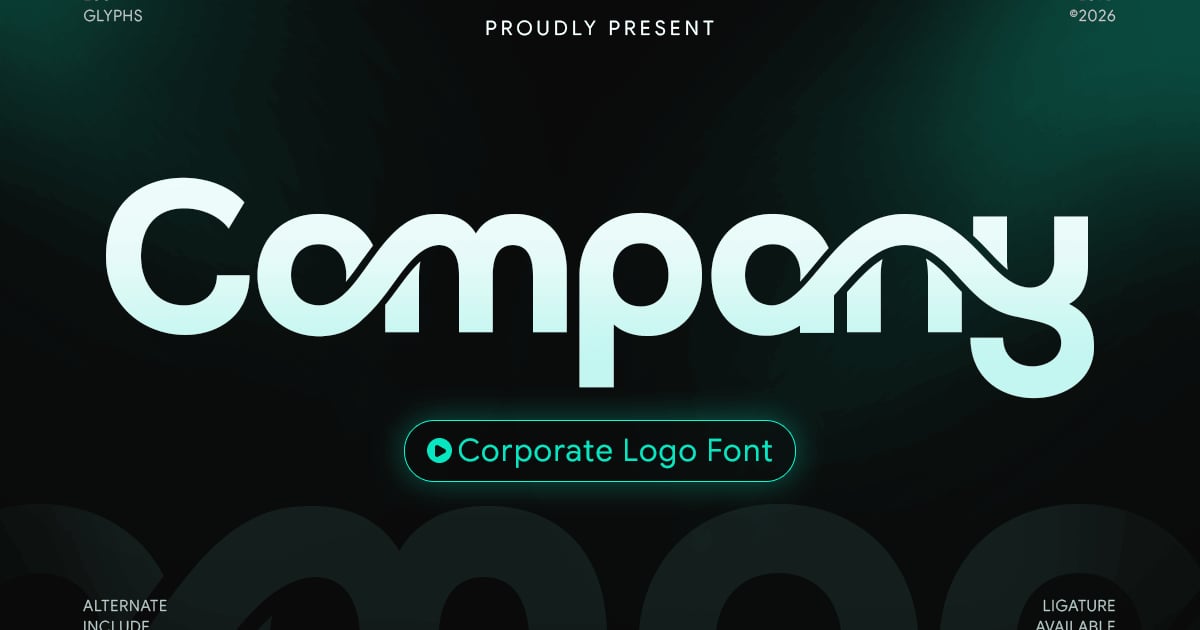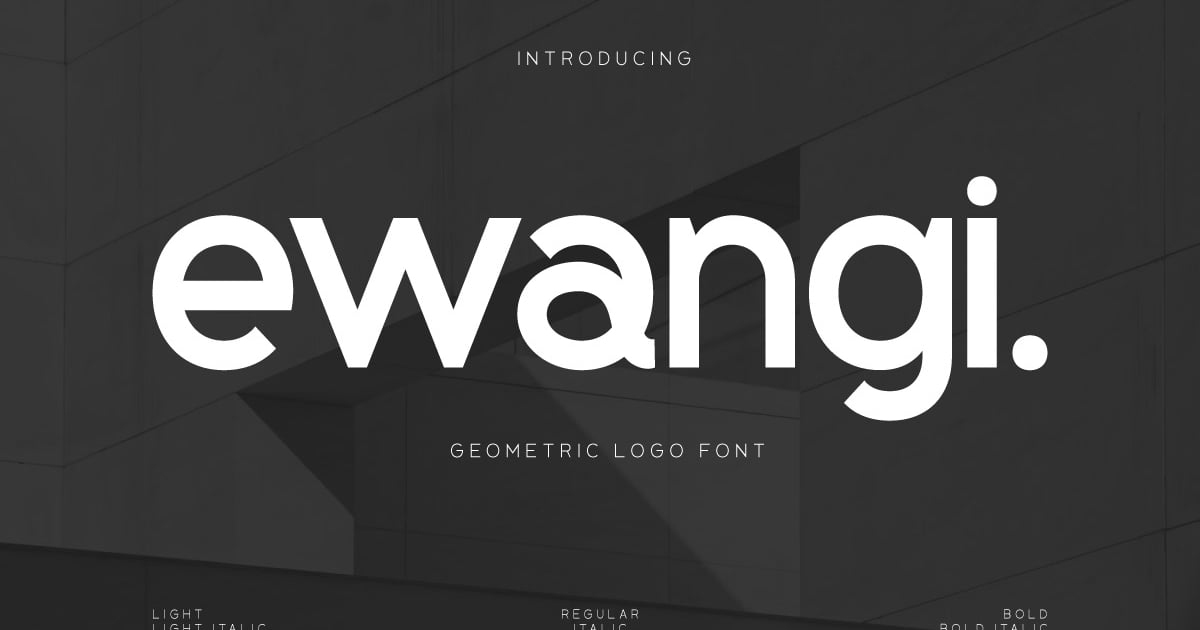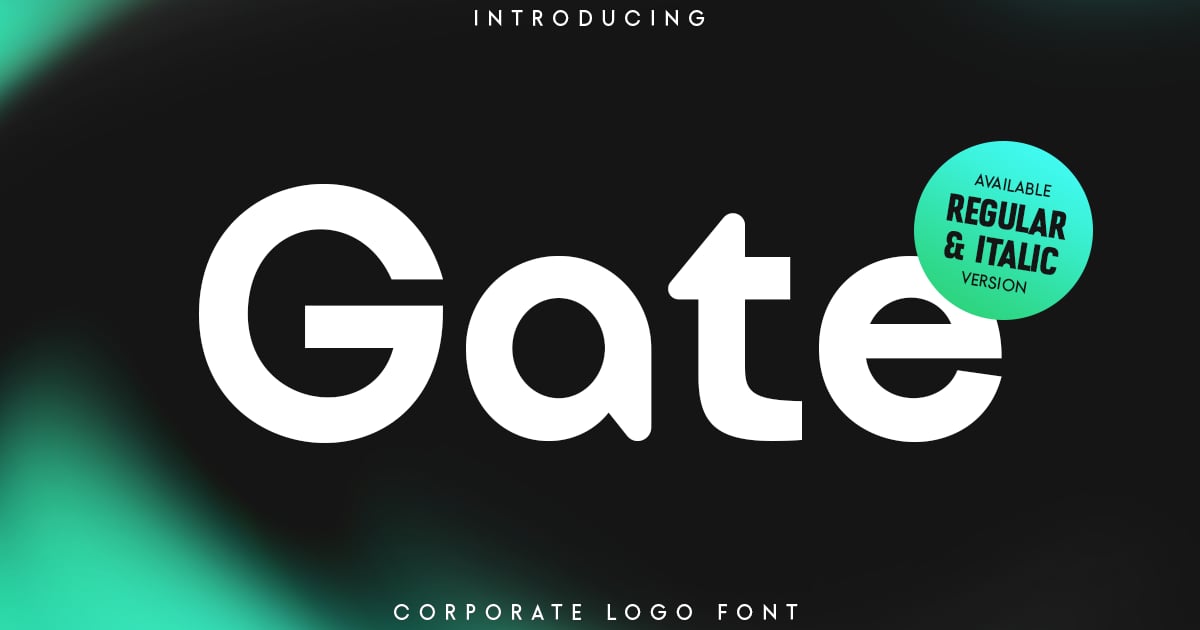
A corporate rebrand rarely starts with a mood board. It starts with someone pulling up the current logo next to a competitor’s and asking, quietly, why theirs looks like 2026 and ours looks like a filing cabinet. If you’re hunting for fonts for rebranding a company that has simply outgrown its old identity, the search usually narrows fast. Each earns its spot for a different reason — distinctiveness, restraint, or sheer range — and together they set the tone for everything else on this list.
Corporate identity typefaces get judged by a different rubric than the fonts you’d pick for a poster or a pitch deck, and rebrand typography in particular has to survive scrutiny most design decisions never face.
• It’s distinctive enough to own — nobody mistakes it for the template default.
• It’s restrained enough to last a decade, not just a trend cycle.
• The family is deep enough to cover every touchpoint, from signage to UI.
Company – Corporate Logo Font
Company - Corporate Logo Font
Company is a clean, professional sans-serif typeface built for business identity work. Its geometric letterforms and balanced proportions convey reliability and modern professionalism, making it ideal for enterprise communications, presentation decks, and brand guidelines. As a font for corporate rebrand projects, it delivers the clarity and authority that institutional clients expect. The family supports multilingual typesetting and includes uppercase and lowercase alphabets, numerals, and essential punctuation marks. Files are provided in both TTF and OTF formats for seamless integration across design applications.
Gate – Corporate logo Font
Gate - Corporate logo Font
Gate is a clean, professional typeface designed to project authority and modern sophistication. Its geometric letterforms and balanced proportions make it ideal for corporate identities, tech startups, and institutional branding. As a font for corporate rebrand projects, it brings clarity and confidence to logotypes and visual systems. The design emphasizes legibility at various scales while maintaining a distinctive character that helps brands stand out. Perfect for companies seeking a contemporary yet timeless aesthetic, Gate delivers the polish and professionalism that enterprise applications demand.
Ewangi – Corporate Font
Ewangi - Corporate Font
Ewangi is a clean, professional sans-serif designed for business communication and visual identity work. Its geometric letterforms strike a balance between approachable and authoritative, making it well-suited for presentations, brand guidelines, and digital interfaces. As a font for corporate rebrand projects, it delivers the clarity and polish that modern organizations require. The typeface includes both headline and minimalist weights, offering flexibility for hierarchical typography. Ewangi supports multilingual character sets and comes with standard punctuation and numerals, providing a complete toolset for professional design applications.
Modern Corporate Font – Kotalama
Modern Corporate Font - Kotalama
Kotalama brings clean geometry and professional polish to contemporary visual identities. This sans-serif typeface balances technical precision with approachable warmth, making it equally effective for presentation decks, brand guidelines, and marketing collateral. As a font for corporate rebrand initiatives, it offers the clarity needed for digital interfaces while maintaining sophistication in print applications. The family supports multilingual projects with extended Latin characters, and includes uppercase and lowercase letters, numerals, and punctuation. Files are provided in OTF and TTF formats for seamless integration across design workflows.
George – Modern Corporate Logo Font
George - Modern Corporate Logo Font
George is a refined serif typeface that balances classical elegance with contemporary minimalism, making it an excellent font for corporate rebrand projects and professional logo design. Its structured letterforms convey authority and sophistication while maintaining approachability through subtle modern touches. The design works particularly well for financial institutions, law firms, and premium lifestyle brands seeking to communicate trustworthiness and refinement. George includes uppercase and lowercase characters, numerals, punctuation, and multilingual support. Files are provided in both OTF and TTF formats for seamless integration across print and digital applications.
Espena – Corporate Logo Font
Espena - Corporate Logo Font
Espena is a refined sans-serif typeface designed to convey professionalism and contemporary sophistication. Its clean geometric forms and carefully balanced proportions make it particularly effective for logo design, brand identities, and corporate communications. The family pairs a standard corporate weight with a luxury variant, offering designers flexibility for hierarchical typography. As a font for corporate rebrand projects, Espena delivers the polish and versatility needed for modern business applications. The package supports multilingual characters and includes both TTF and OTF formats for seamless integration across digital and print workflows.